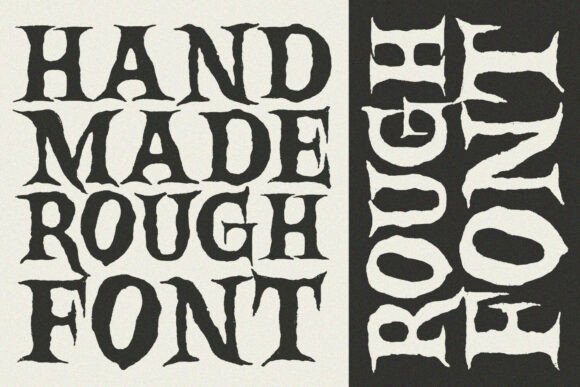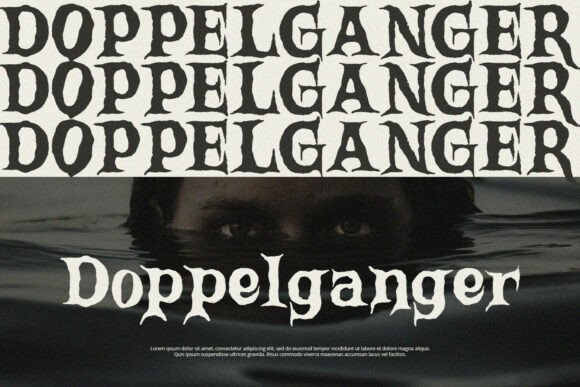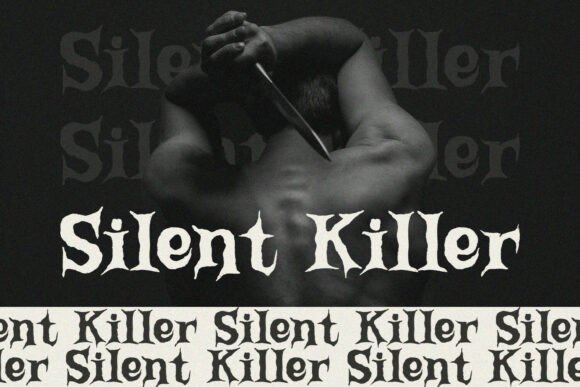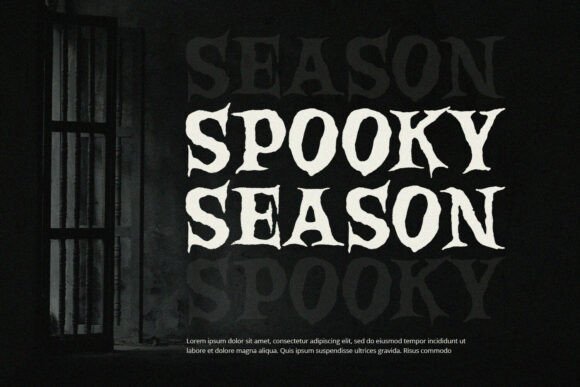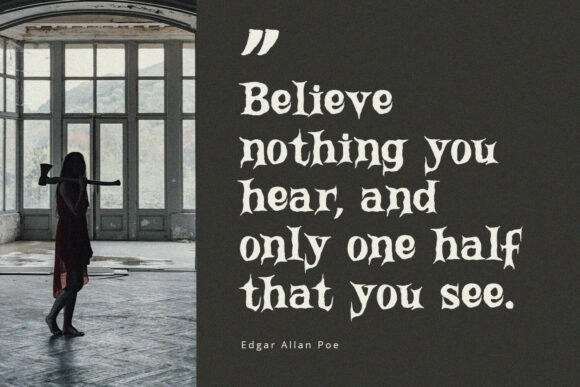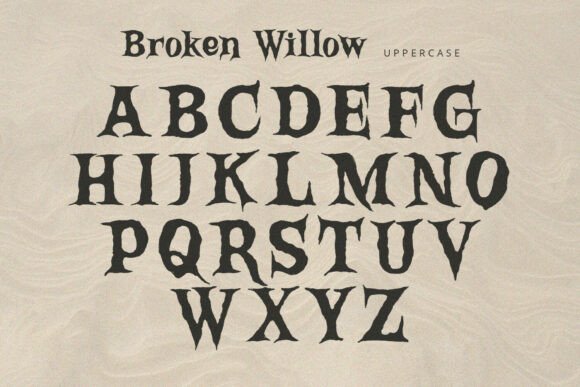
Unleash the Power of Broken Willow Font: Adding an Edgy Touch to Your Designs
In the world of typography, fonts play a crucial role in conveying the tone and personality of a brand or design project. For designers and crafters looking to add a touch of edginess to their work, the Broken Willow Font is an excellent choice. This display font is designed to evoke a rough and scary feel, making it perfect for a wide range of applications, from branding and logo design to packaging and advertising.
What is Broken Willow Font?
Broken Willow Font is a unique and eye-catching display font that is designed to make a statement. Its rough and distressed texture gives it a raw, unpolished feel that is sure to grab attention. The font’s irregularities and imperfections add to its charm, making it an excellent choice for designers who want to create a bold and edgy look.
Characteristics of Broken Willow Font
So, what makes Broken Willow Font so special? Here are some of its key characteristics:
- Rough and scary feel: The font’s distressed texture and irregularities give it a rough and scary feel that is perfect for designs that require an edgy touch.
- Unique and eye-catching: The font’s bold and irregular design makes it stand out from more traditional fonts, ensuring that your design will grab attention.
- Versatile: Broken Willow Font can be used for a wide range of applications, from branding and logo design to packaging and advertising.
- High-quality: The font is designed to be high-quality and scalable, ensuring that it will look great in any design.
Uses for Broken Willow Font
Broken Willow Font is a versatile font that can be used for a wide range of design projects. Here are some ideas to get you started:
- Branding and logo design: The font’s bold and edgy design makes it perfect for creating a memorable brand identity.
- Lettering and logotype: The font’s unique texture and irregularities make it ideal for creating eye-catching lettering and logotypes.
- Clothing and apparel: The font’s distressed texture makes it perfect for designing clothing and apparel, such as t-shirts and hoodies.
- Posters and advertising: The font’s bold and attention-grabbing design makes it ideal for creating posters and advertisements.
- Packaging and shopping bags: The font’s unique design makes it perfect for creating eye-catching packaging and shopping bags.
- Book covers and photography: The font’s edgy design makes it ideal for creating bold and eye-catching book covers and photography projects.
- Special events: The font’s unique design makes it perfect for creating eye-catching designs for special events, such as concerts and festivals.
Tips for Using Broken Willow Font
Here are some tips for getting the most out of Broken Willow Font:
- Use it sparingly: The font’s bold and edgy design can be overwhelming if used too much. Use it sparingly to create a bold and eye-catching design.
- Experiment with colors: The font’s distressed texture looks great in a variety of colors. Experiment with different colors to find the one that works best for your design.
- Pair it with other fonts: The font’s bold design makes it perfect for pairing with other fonts. Experiment with different font combinations to create a unique and eye-catching design.
Broken Willow Font is a unique and eye-catching display font that is perfect for designers and crafters looking to add an edgy touch to their work. Its rough and scary feel, combined with its versatility and high-quality design, make it an excellent choice for a wide range of design projects. Whether you’re creating a bold and eye-catching logo or a striking poster, Broken Willow Font is sure to make a statement.